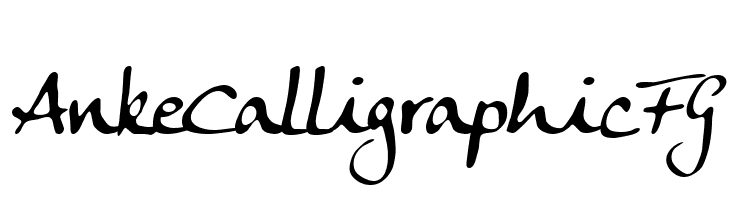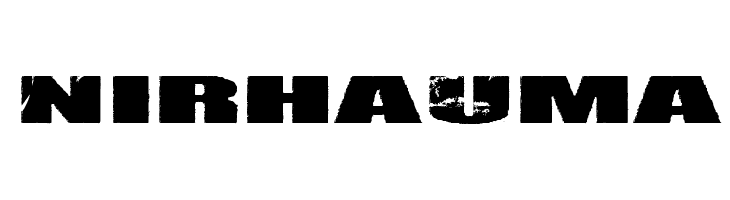
A bold, distressed font with a grunge effect and tight spacing.
A modern, high-contrast font with a geometric and futuristic style.
A sophisticated script font with elegant curves and a modern calligraphic style.
A bold, geometric font with a double-line outline for a dimensional look.
A modern, high-contrast stencil-like font with angular cuts.
A vintage typewriter-style font with a bold, textured appearance.
A bold, angular font with sharp, blade-like edges for a modern, edgy look.
A bold, italic typewriter-style font with a vintage yet modern appeal.
A bold, hand-painted style font with rugged, textured strokes.
A bold, cursive font with a handwritten, elegant style.